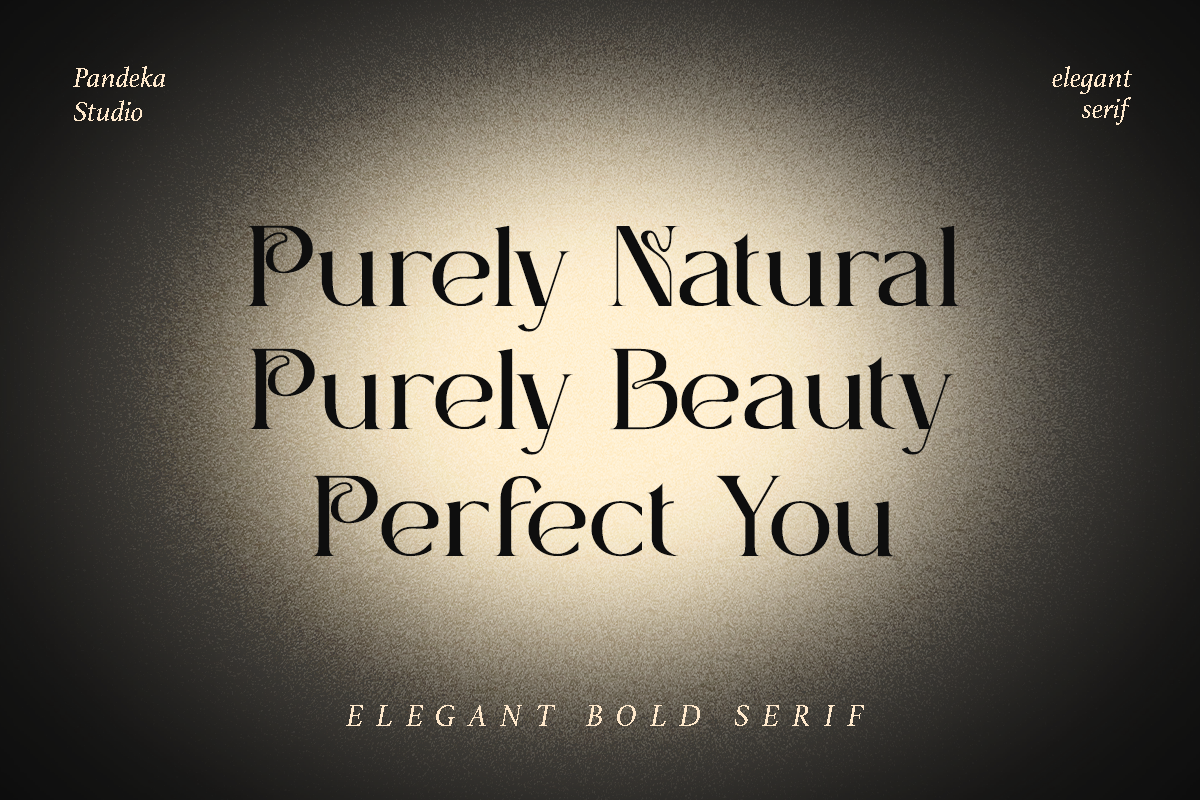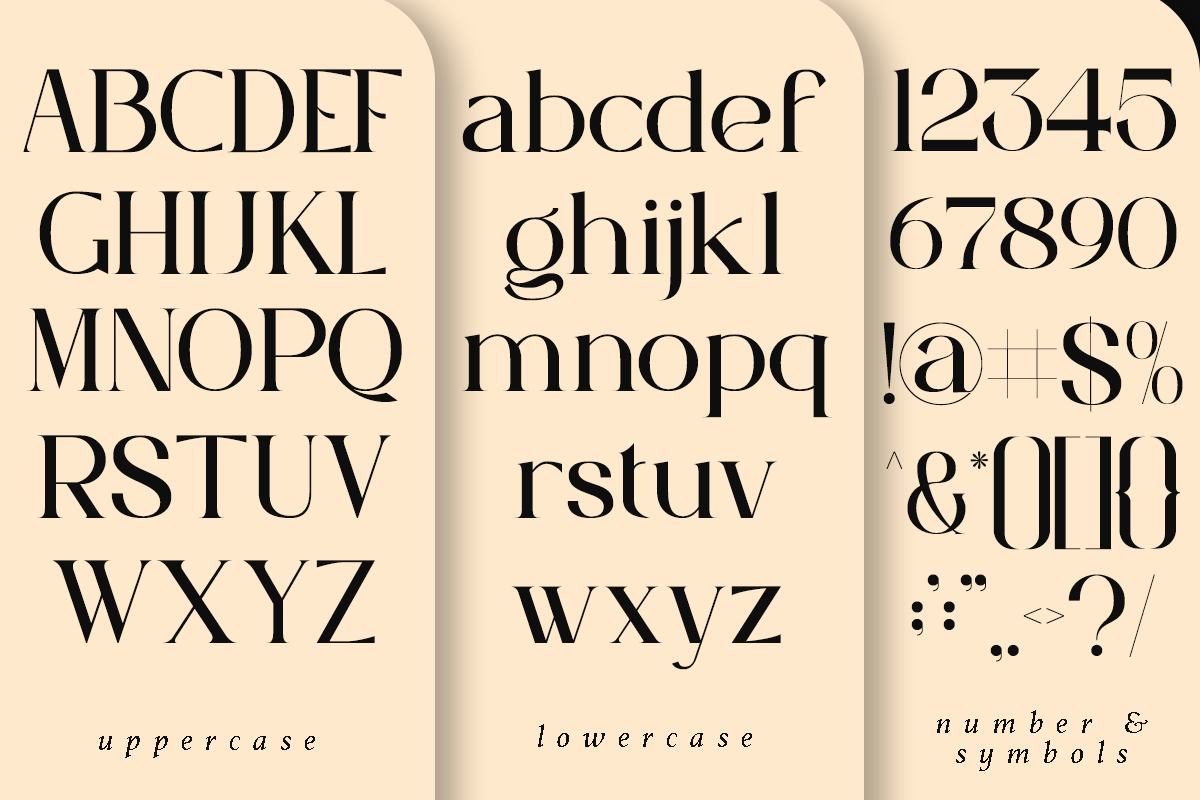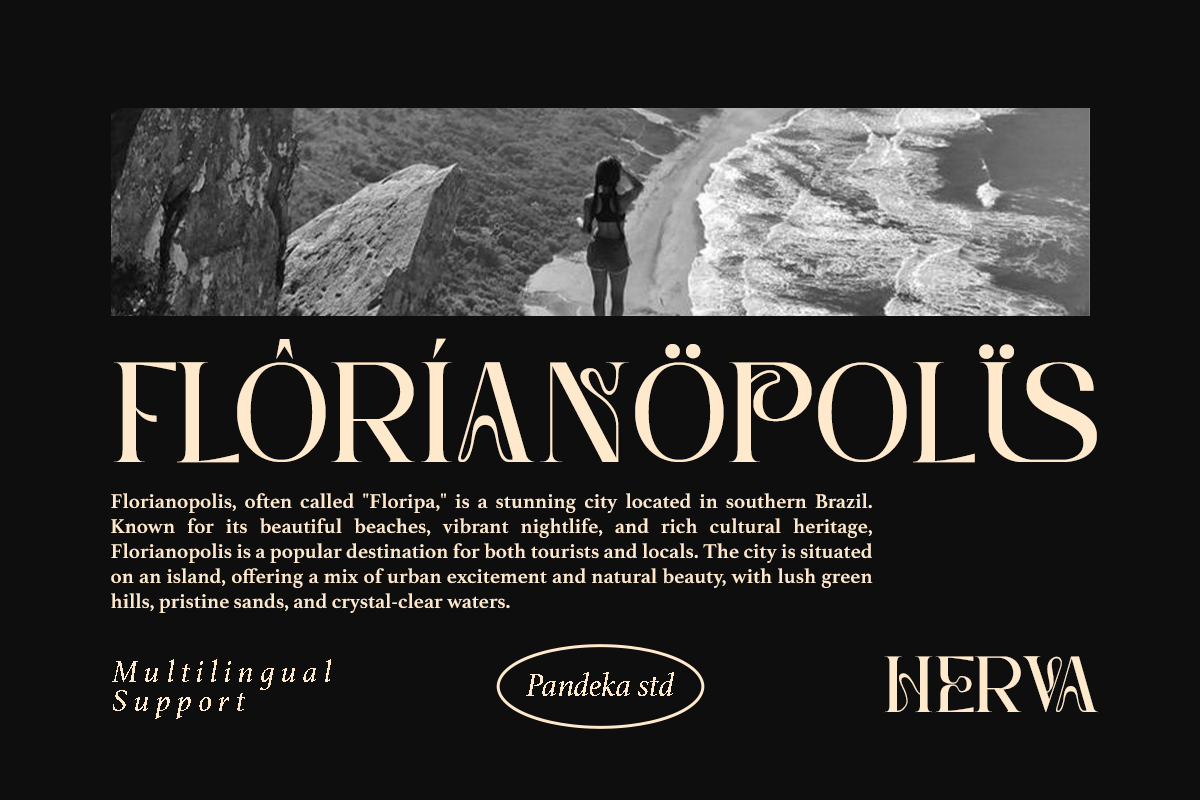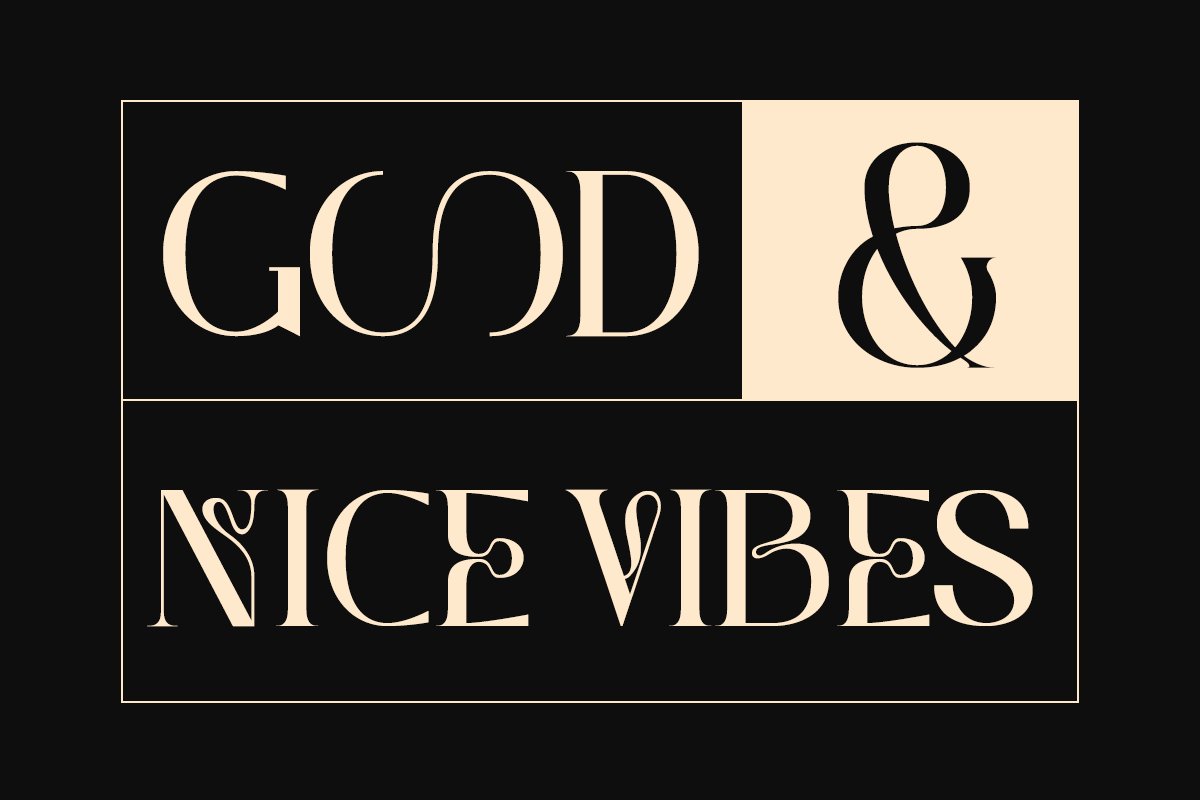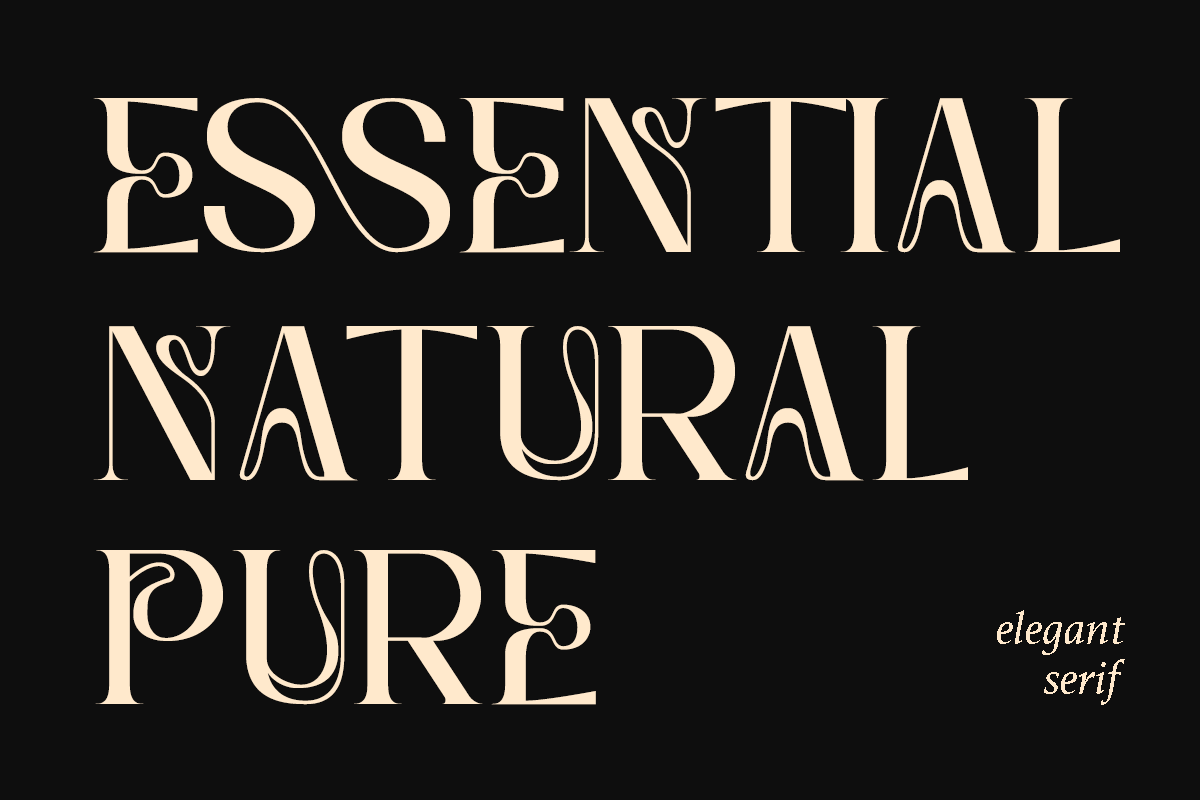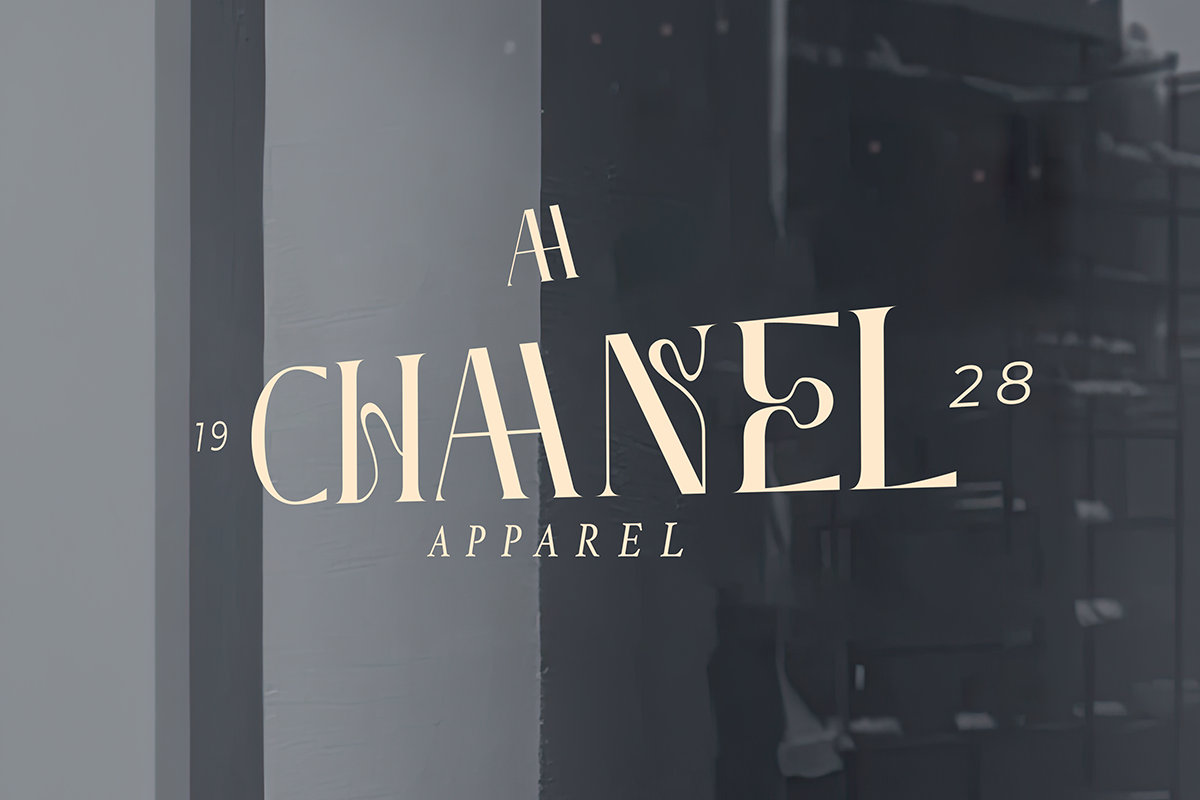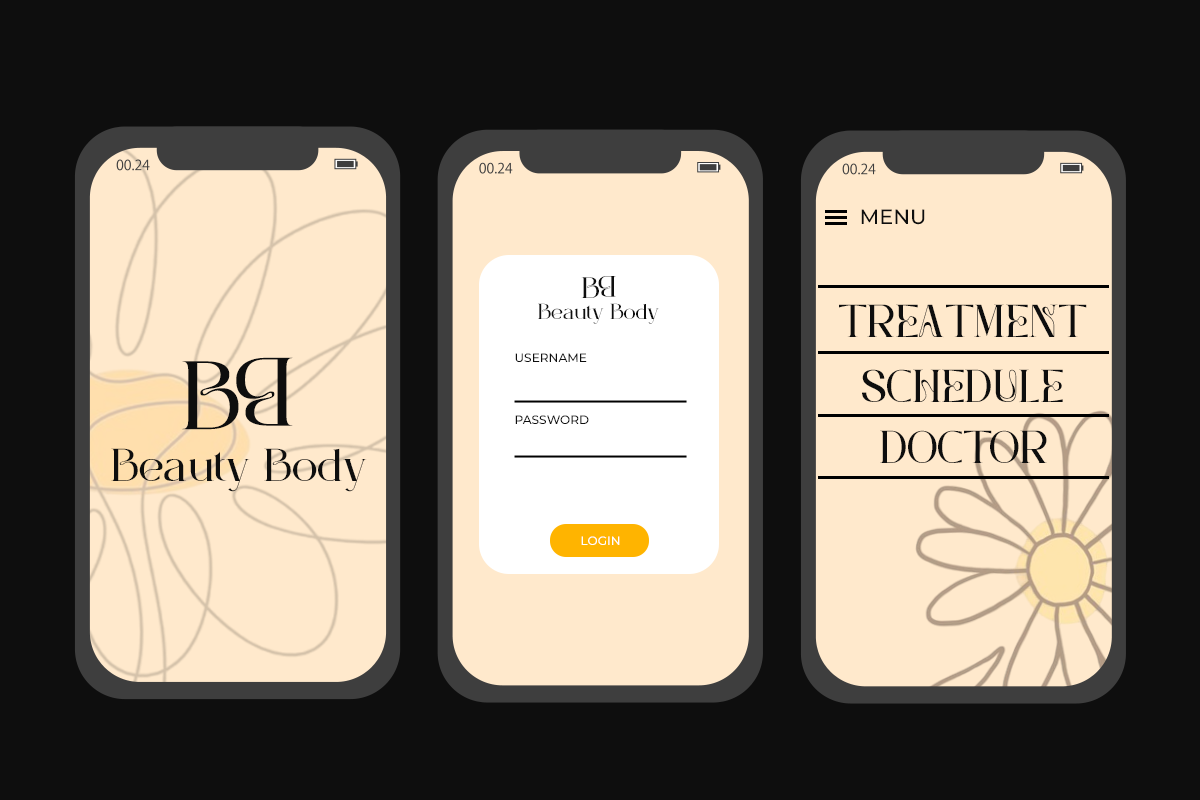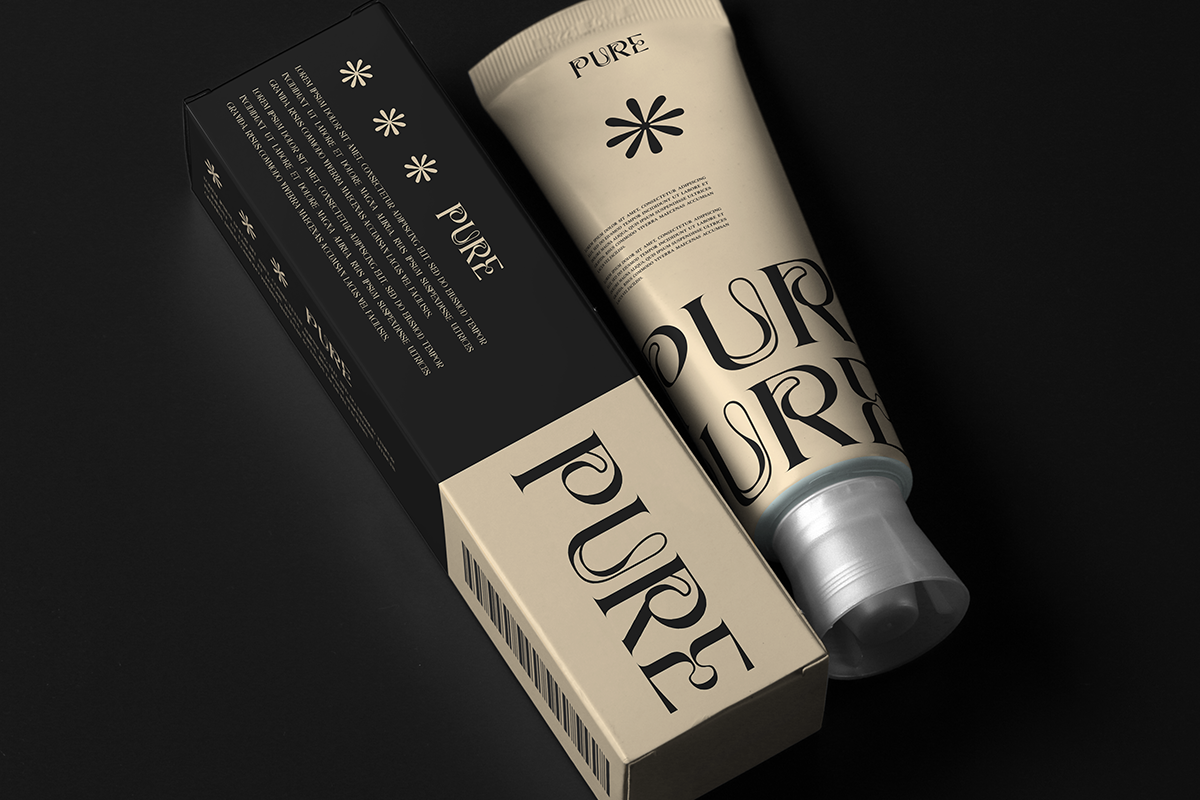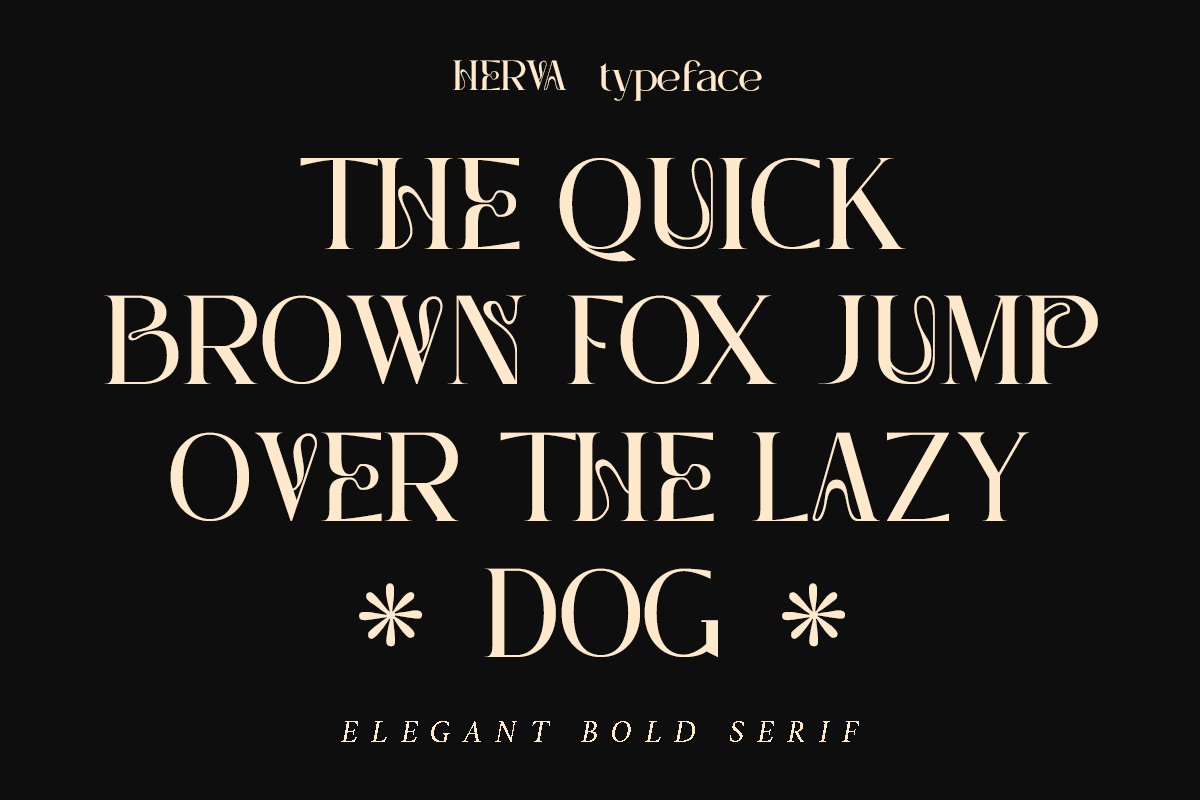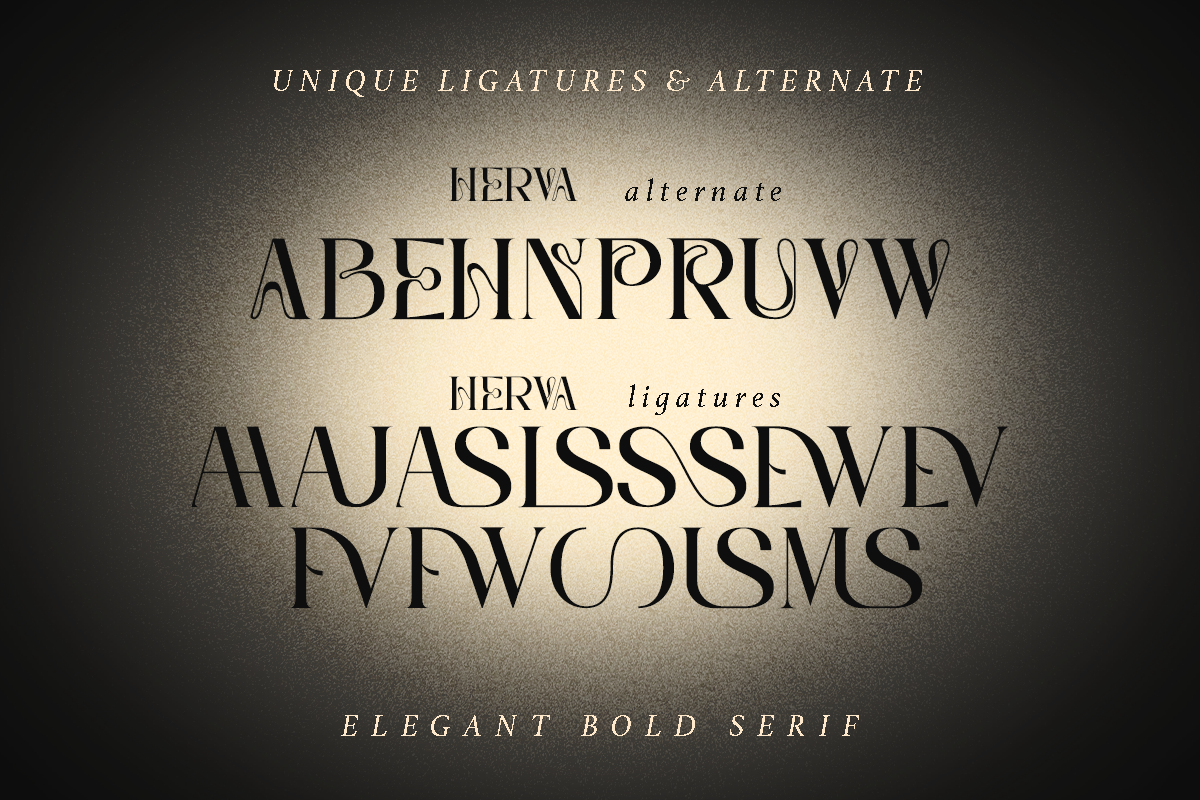
Herva - Decorative Elegant Serif
Introducing the new Herva Ligature Serif!
Herva is a modern, elegant, and classy serif typeface, best used as a display for headings, logos, branding, magazines, product packaging, and invitations. Herva comes with clean lines and smooth curves that give any project an extra touch of class.
Herva was built with OpenType features and includes ligatures, alternates, numbers, punctuation, and supports multiple languages.
- Unique Stylistic Alternates and Ligatures